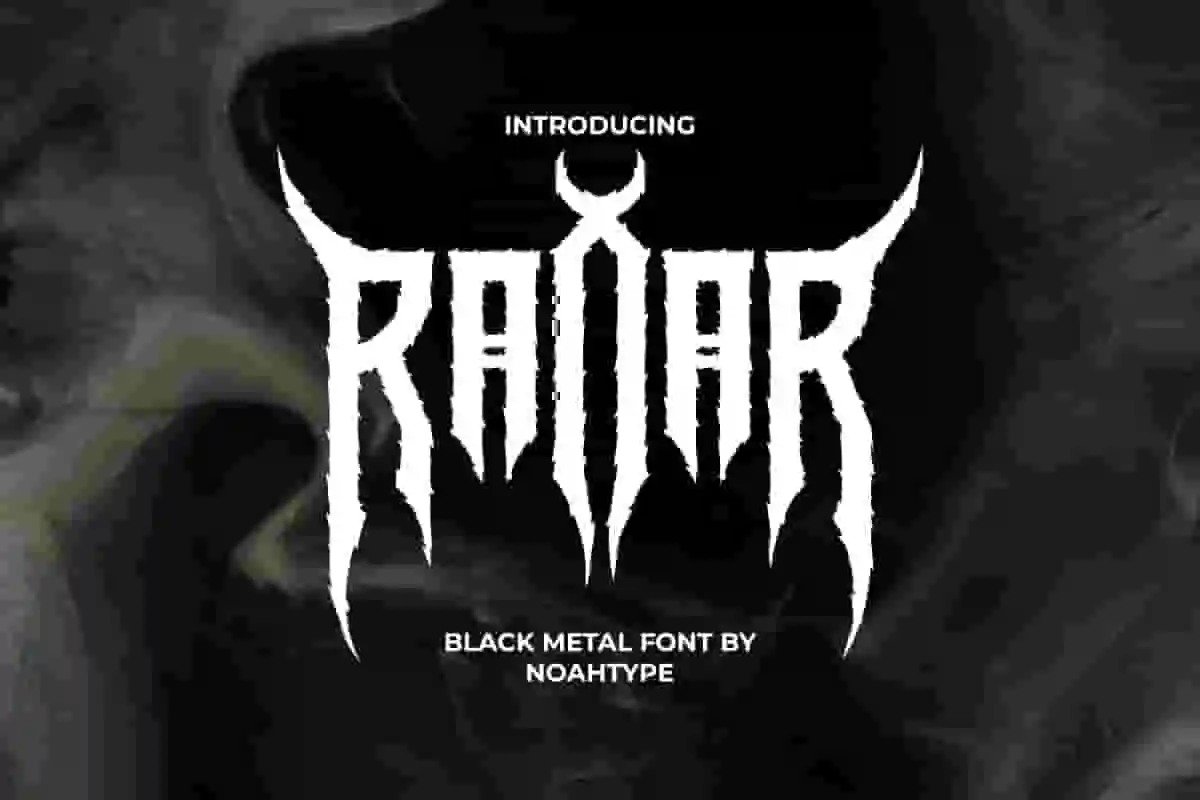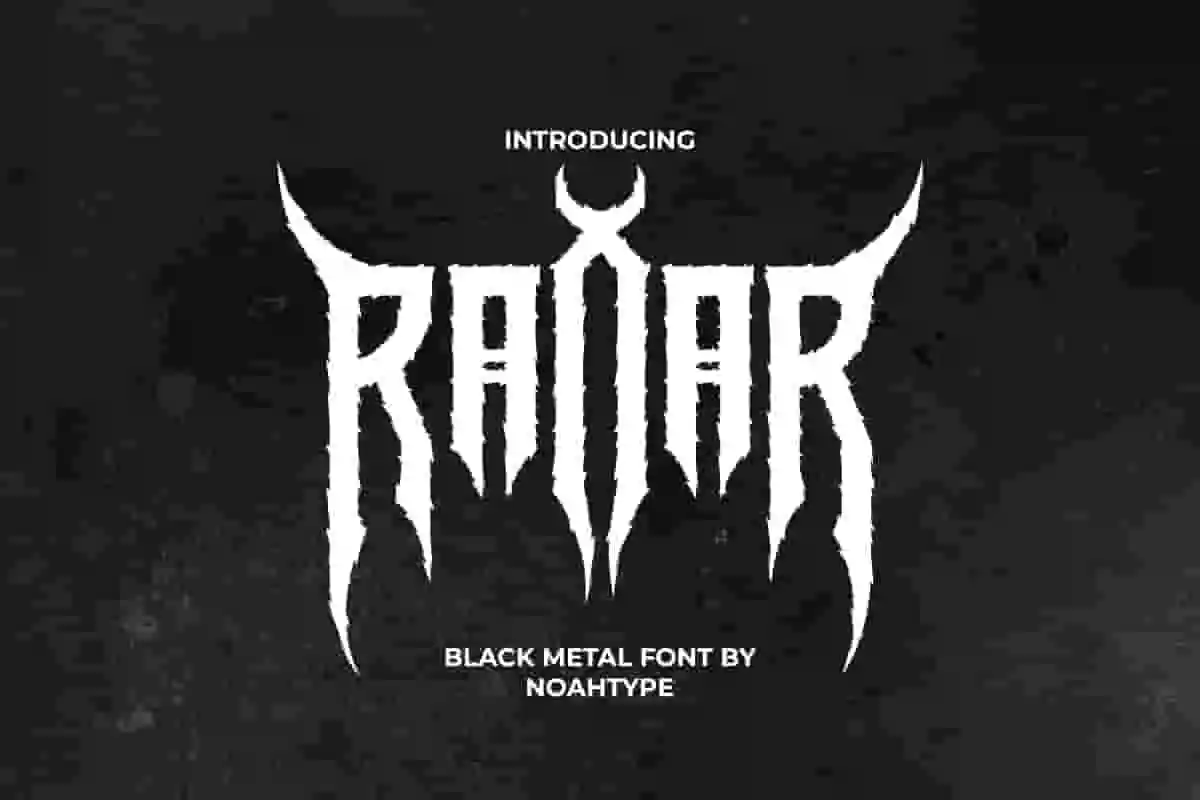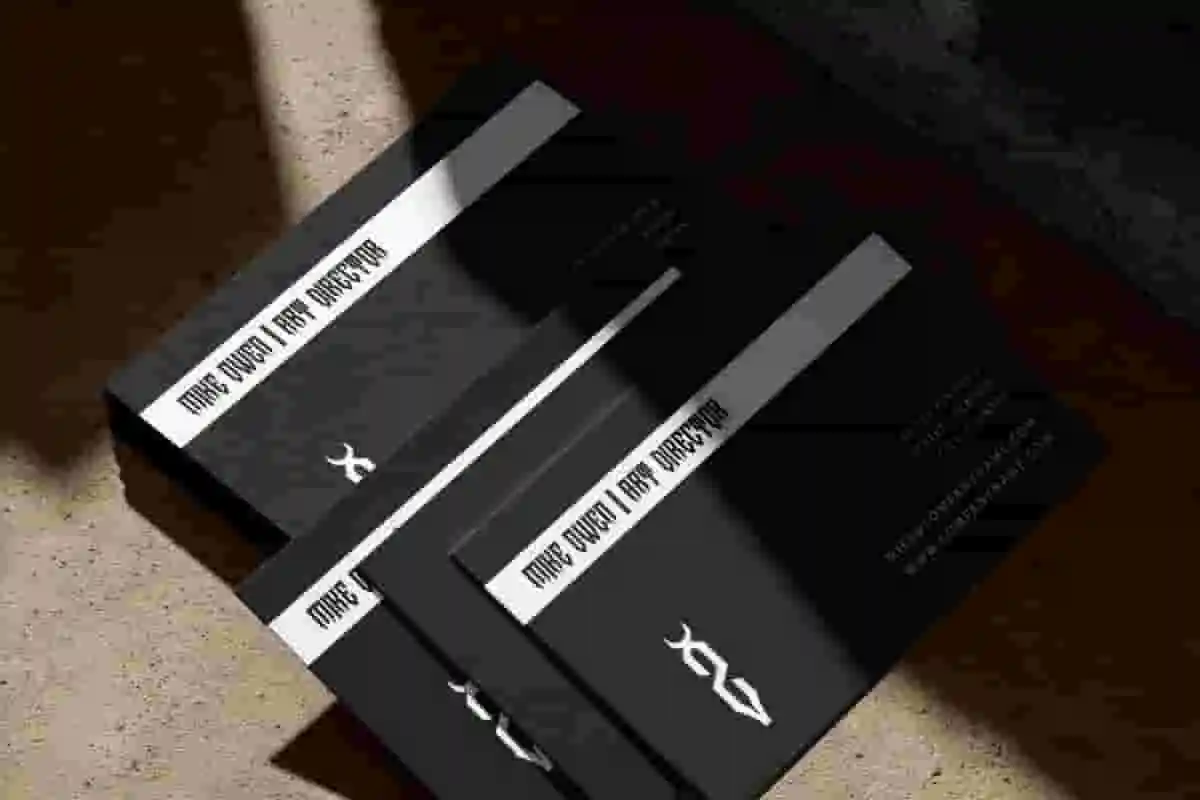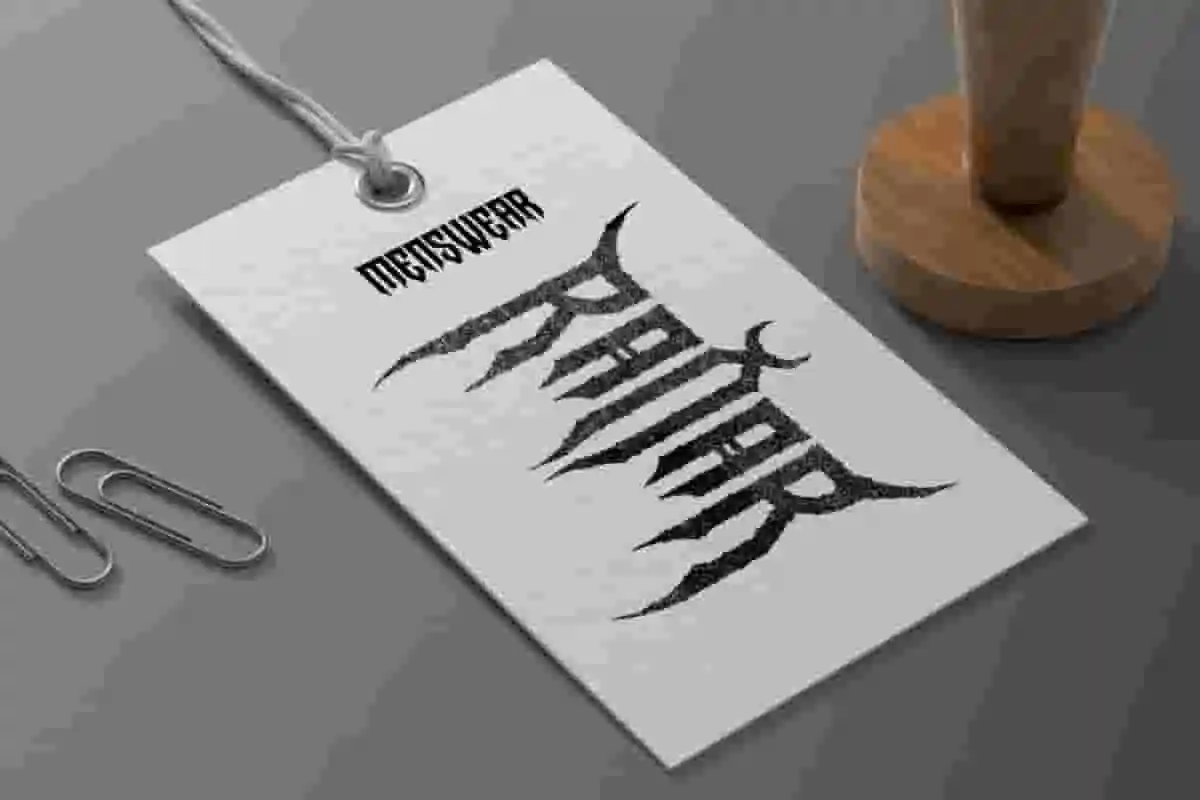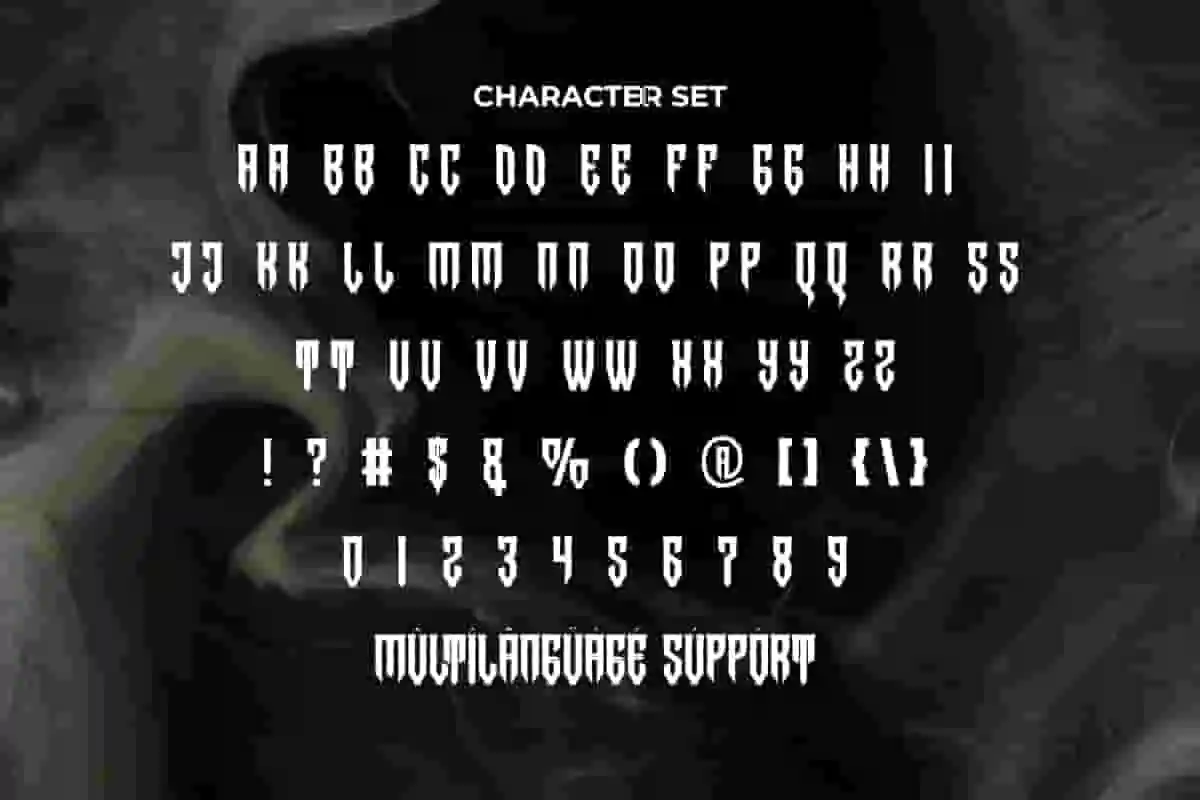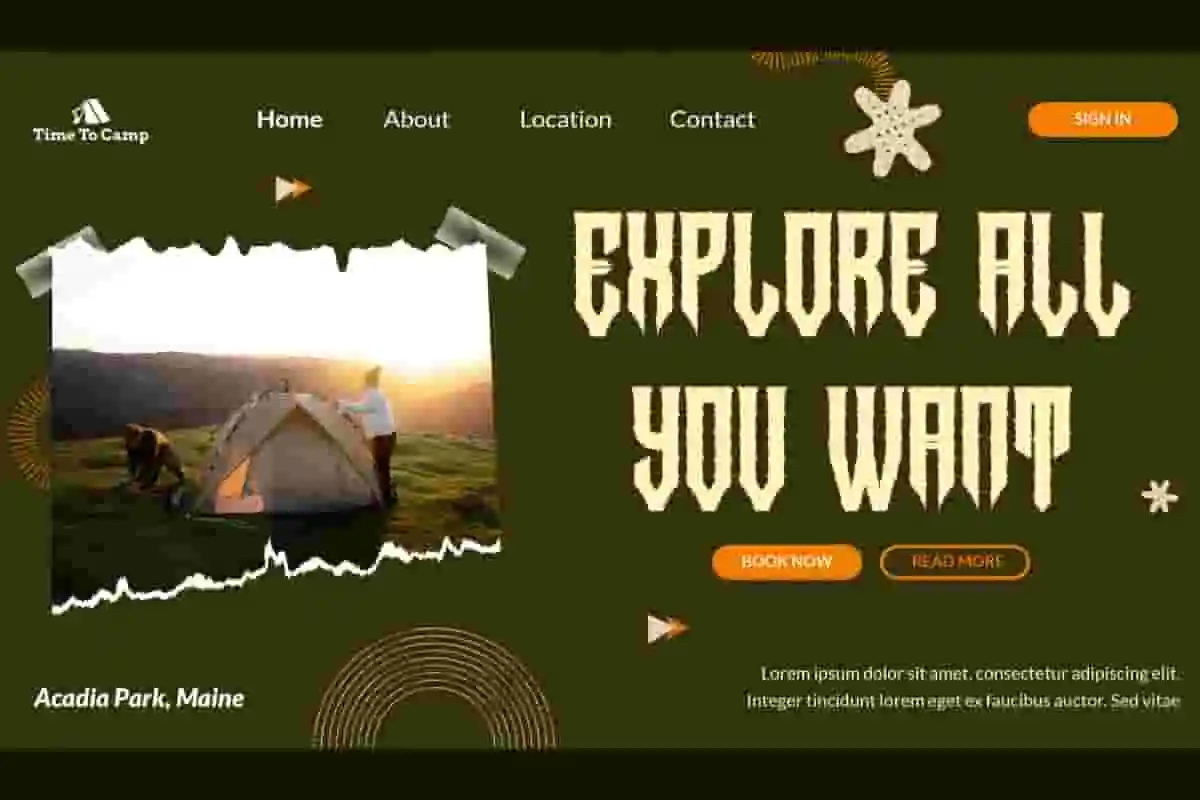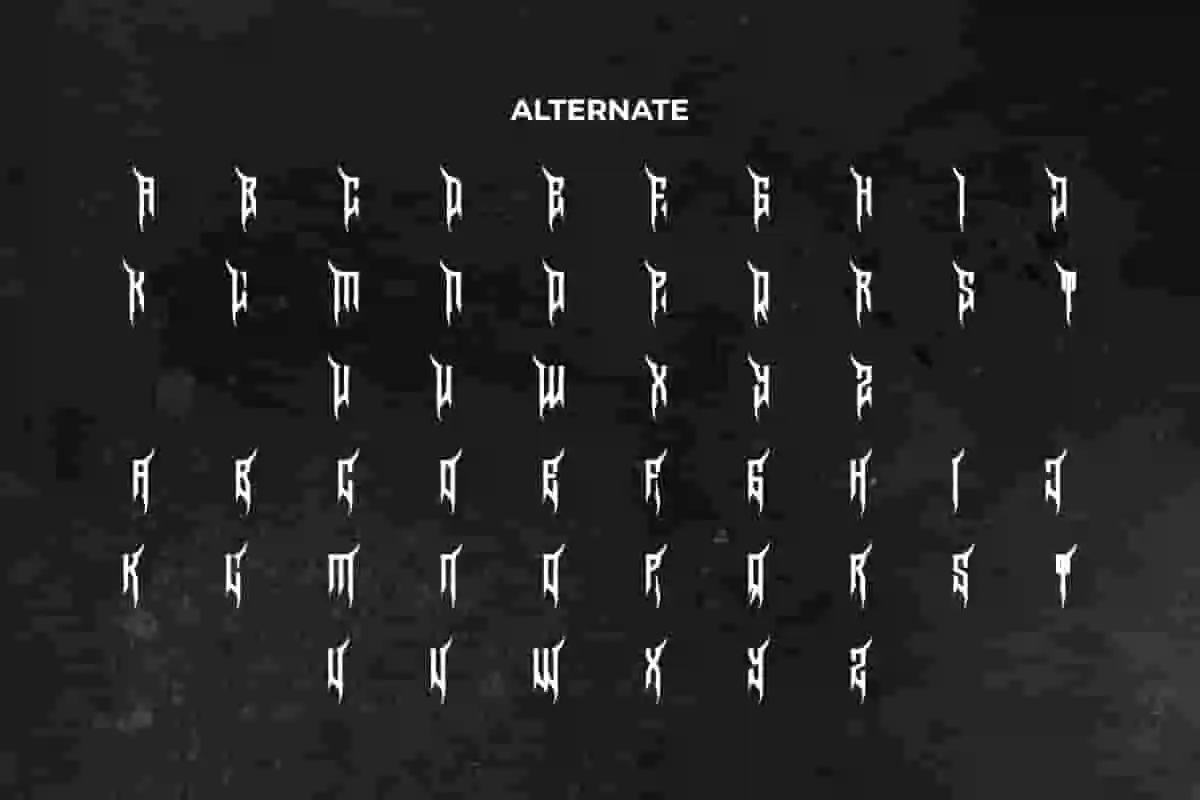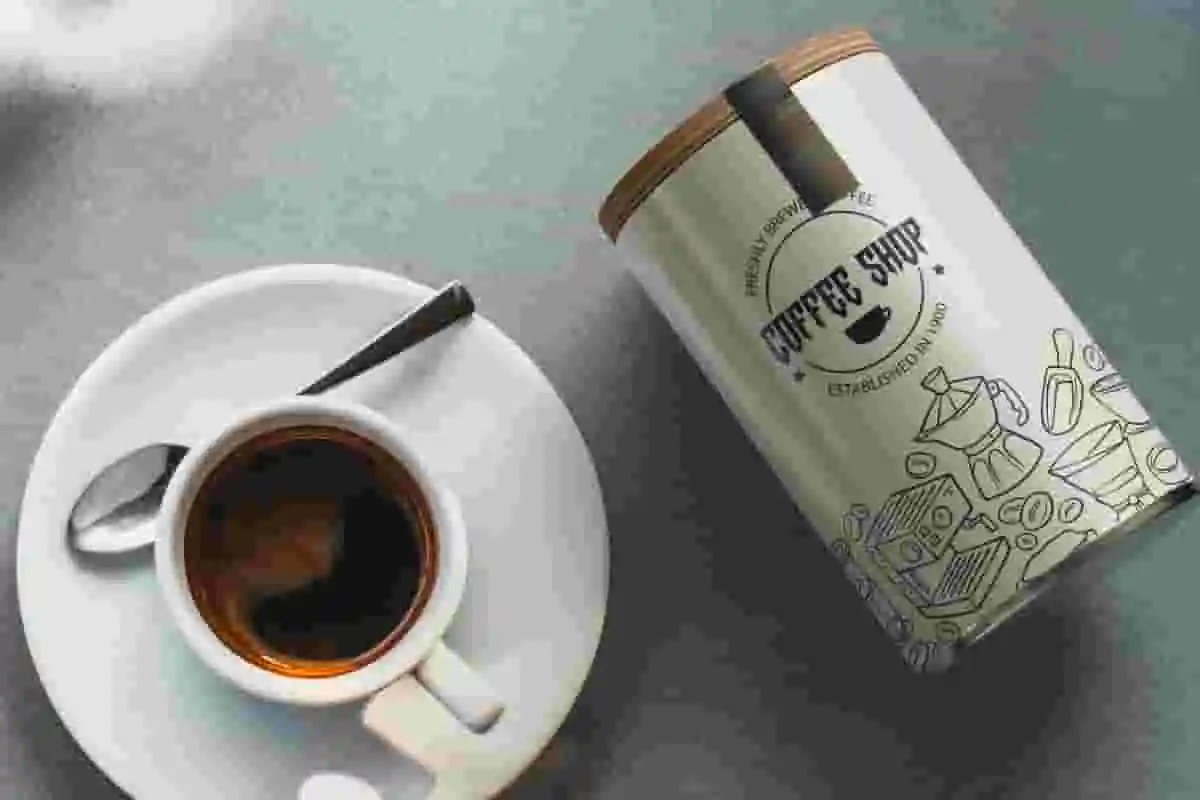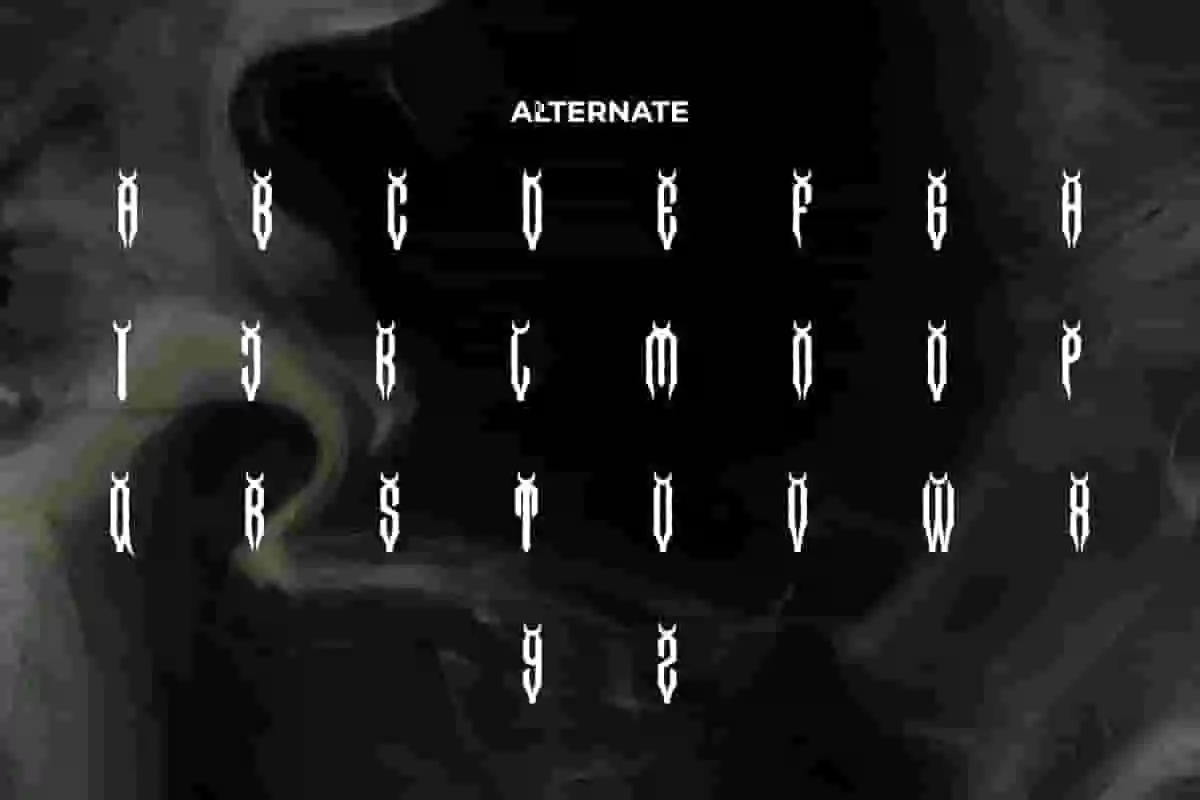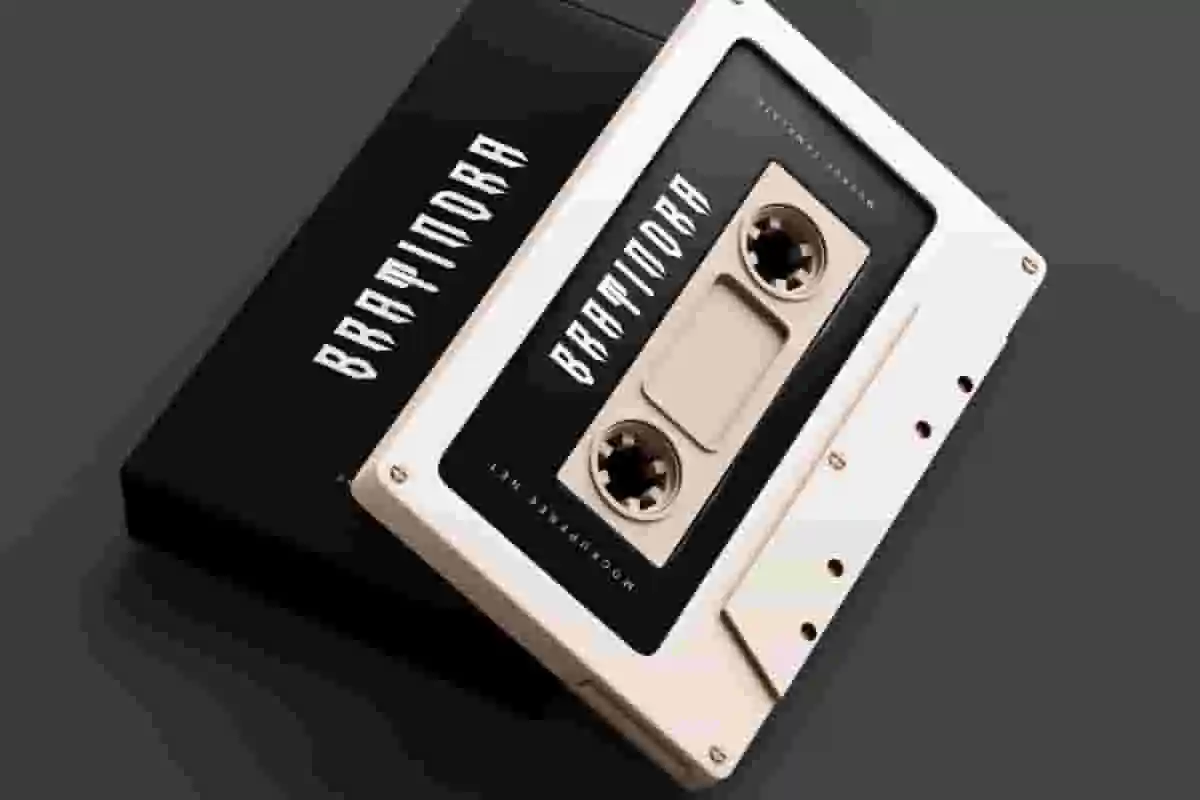
Ranar Font is a rough blackmetal hardcore skretched font by NoahType. This font is made with fine fur details along the characters and horns which make its appearance successful in giving a scary impression. It will be perfect for any designs, such as custom design, brand image, poster, label, invitation, cover, marketing material, menu, printing, product packaging, quotes, signage, website, and many more!
Ranar Font includes full set of ALL CAPS for Uppercase and Lowercase Basic Characters, Numerals, Punctuation, Symbol, and Alternate character. This cool font will make your design amazing and also a perfect choice for many industries, such as game, movie, comic, music, accessories, advertising, art, café, event or festival, fashion, printing, publishing, etc.